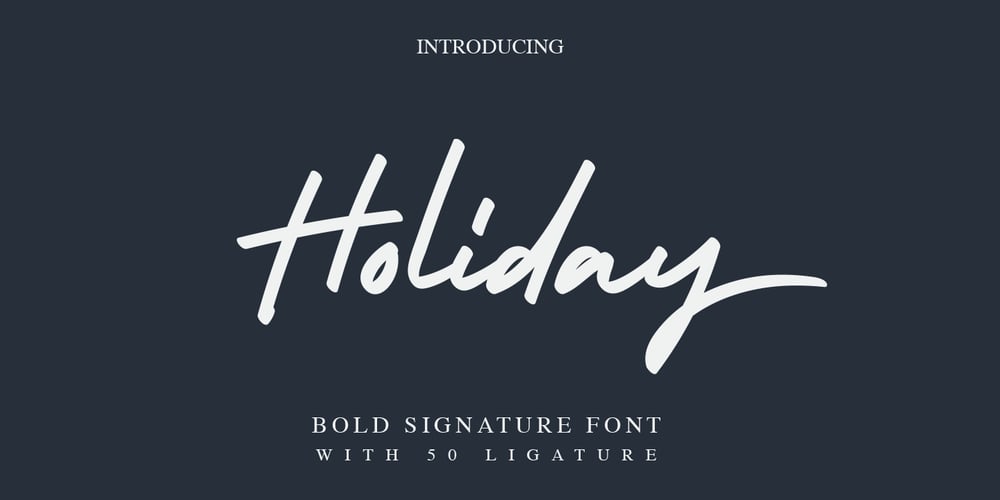
Holiday Font Family was designed by Agung Rohmat and published by alphArt. Holiday contains 2 styles and family package options. Introducing our UPDATE “Holiday – Script Handwritten Font”Two years ago we created a script handwritten font that we named Holiday, we didn’t expect, hundreds of designers have use the Holiday font, this is really cool font. And today, we’ve been working hard to make this Holiday font even better, it’s the best script handwritten font we’ve ever made, we’ve named it Holiday2.Holiday2 – Script Handwritten Font is a handwritten script font with a simple and classy style, this font is great for your next creative projects such as branding, watermark on photography, signature or signature logo design, quotes, album cover, business card, and many other design project. From business cards to photo watermarks, Holiday2 is here to elevate your work to the highest level.However, we still included our old Holiday font, we created Holiday2 to be easier to read and of course with a better design and clean.Holiday comes with uppercase letters, lowercase alternative letters, numbers, punctuation, ligature and multi lingual support To use alternative end text is just block end letters and select alternative letters on glyphs option. it may be used in almost any program by using your Operating System’s utilities (CharacterMap for Windows and Font Book for Mac.), as well as Illustrator, Photoshop CC 2017 and several other applications. we hope you enjoy this font. If you have any questions please don’t hesitate to drop me a message 🙂 Thank you, Best regards alphArt